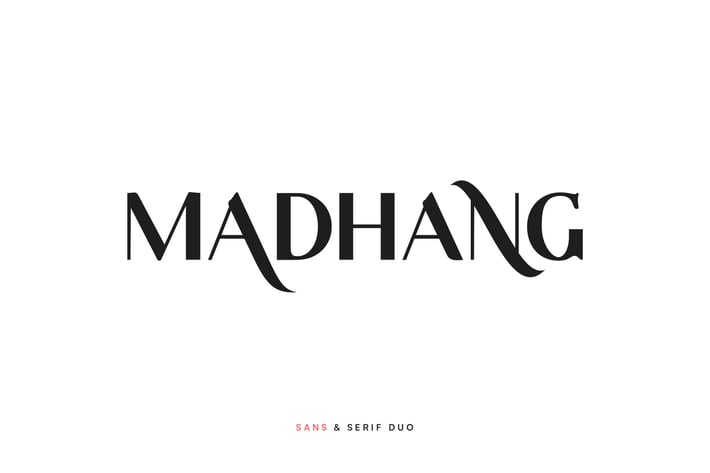
Madhang Font Duo
Madhang Font Duo | Eclectic sans and serif
Madhang is modern sans and serif duo that makes your layout, headlines, or brand design more bautiful and fancy!
2 Styles (Sans serif & Serif)
Uppercase, Lowercase
Stylistic Alternate
Numeral, Symbol, Punctuation
* Accents
Madhang is modern sans and serif duo that makes your layout, headlines, or brand design more bautiful and fancy!
2 Styles (Sans serif & Serif)
Uppercase, Lowercase
Stylistic Alternate
Numeral, Symbol, Punctuation
* Accents